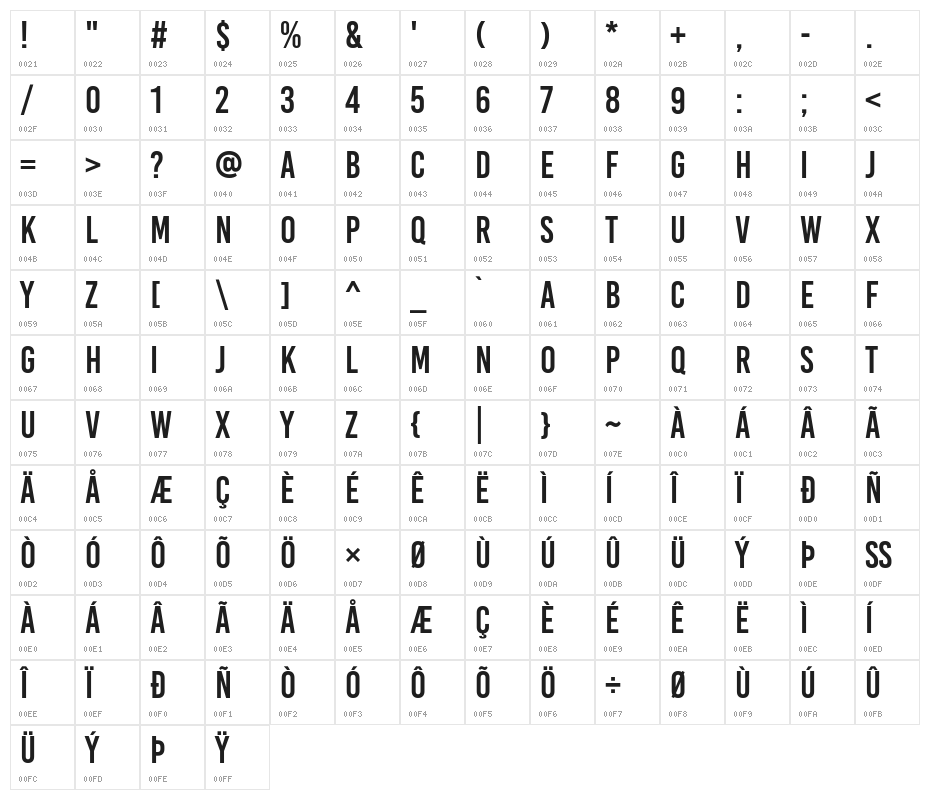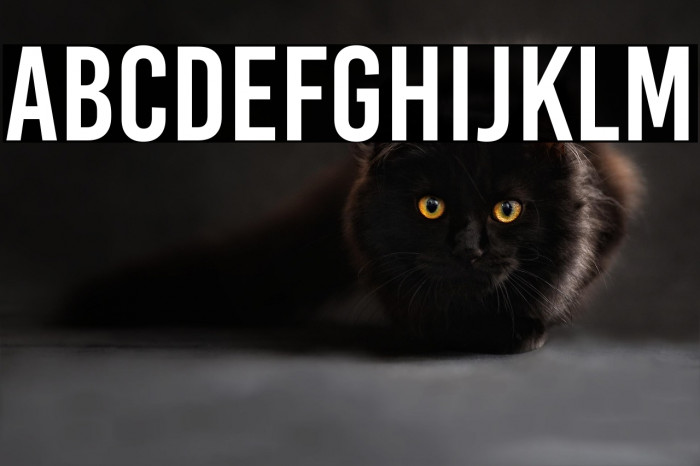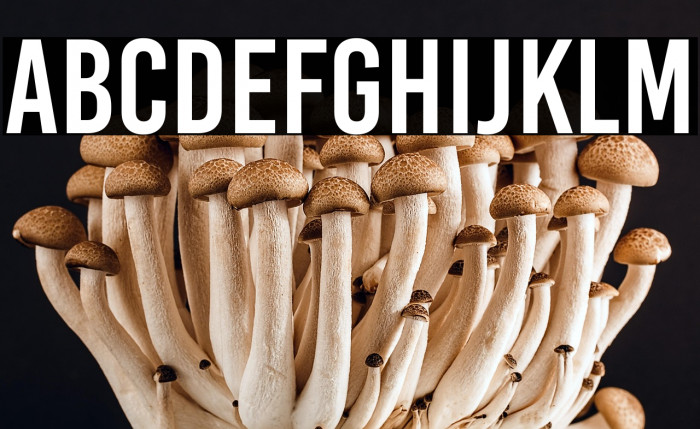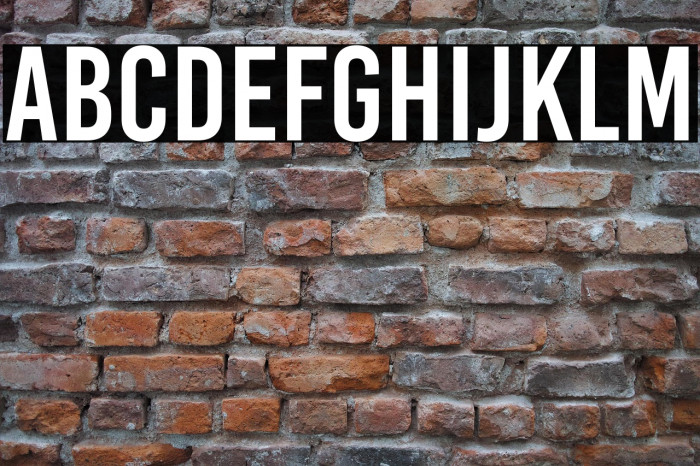
Bebas Kai Font
Bebas Kai Description
This font features a bold, clean, and modern sans-serif style. The characters are uniformly thick, providing a strong and impactful appearance. The uppercase letters are tall and slightly condensed, offering a sleek and professional look. The numerals and special characters maintain the same boldness and clarity, ensuring consistency across all glyphs. This font is highly legible, making it suitable for various design applications where readability and a contemporary aesthetic are desired.
Proposed ProjectsIdeal for headlines, posters, branding, and advertising where a strong visual impact is needed.